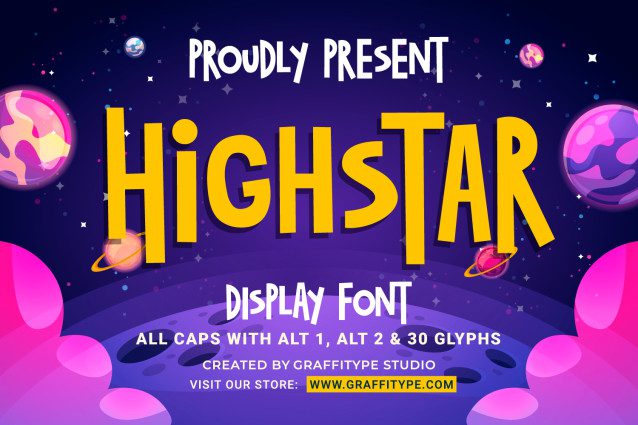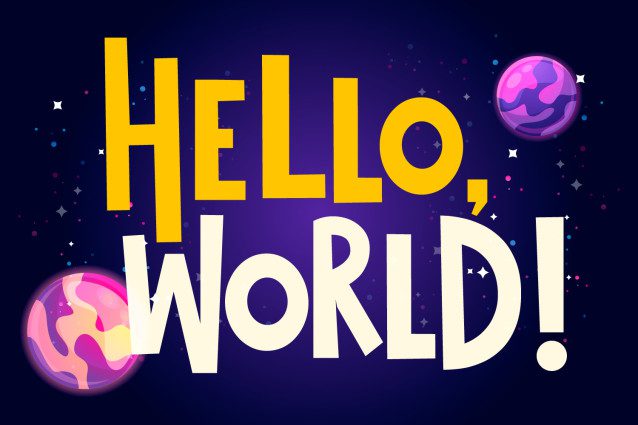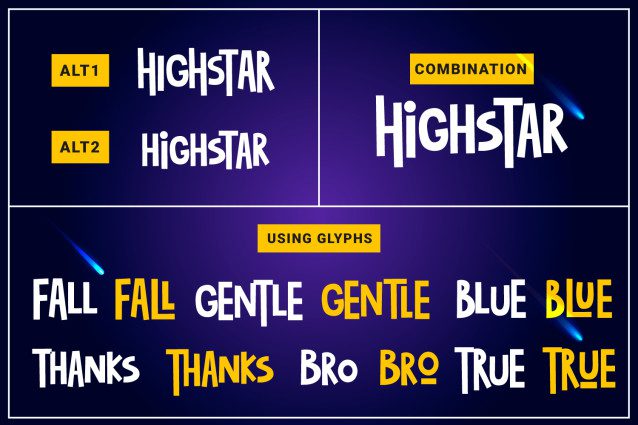
High Star Font
Meet High Star – Display Font, an all-caps display typeface crafted to command attention and elevate your design to new heights. With its strong presence and sharp details, High Star is perfect for bold headlines, modern logos, striking posters, and statement branding.
This typeface includes 2 unique stylistic alternates, giving you flexibility to mix and match for a more dynamic and expressive look. Plus, with 30 additional glyphs and symbols, you can add that extra spark of creativity — perfect for designs that need a touch of individuality and power.
Whether you’re creating something futuristic, editorial, or rebellious, High Star makes every letter feel like a spotlight.